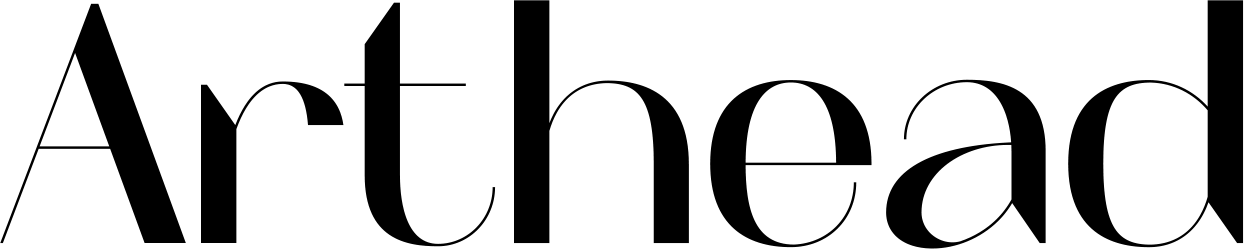
Arthead Font
If modernity is the main point of your content then you need to use a sans-serif font. From that category, we can suggest Arthead with a mixture of thin and thick strokes has a unique and stylish design that you can use for website headers, apps, signages, and user interfaces.
This modern fashion font comes with an amazing collection of characters that contains both the uppercase and lowercase of the alphabets and numbers but you won’t find any punctuation marks in it.
Happy to present ARTHEAD, a modern sans serif and slightly decorative font family that will add to your work a stylish and memorable touch. Arthead is not that complex in structures and shapes, being quite minimal, but has an extreme contrast in strokes, that gives the impression of negative space. Arthead is designed on a vertical axis for a modern look and has diversity in its proportions, with thin terminals and descenders and large counters. This sophisticated, ultra-modern font has three weights, Arthead Light, Regular and Bold. Each weight has 103 glyphs, an uppercase and lowercase alphabet, numerals and standard Latin script support. Arthead is the perfect fit for headlines, titling, large-format prints and posters or any work that requires a clean yet stylish design.